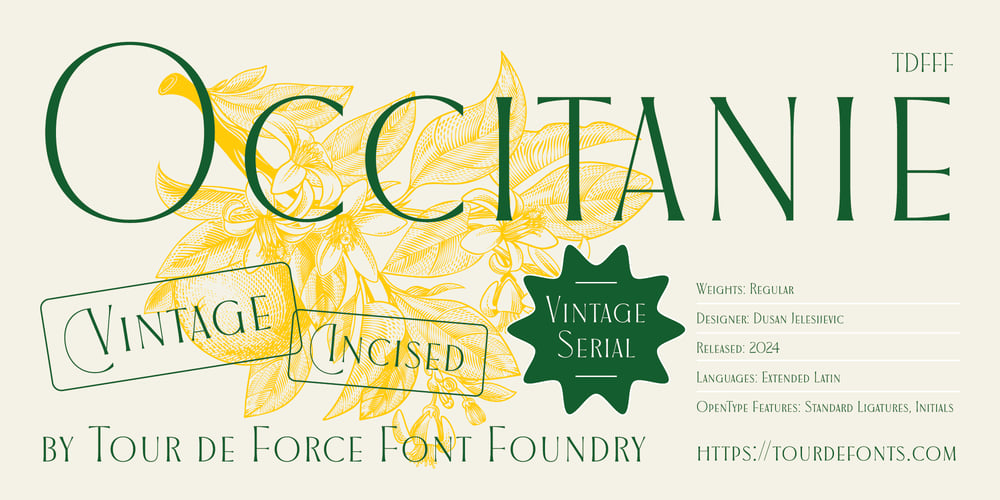
Occitanie Font Family was designed by Dusan Jelesijevic and published by Tour De Force. Occitanie contains 1 styles and family package options. Occitanie is single weight font family inspired by vintage designs.With it’s incised serifs, Occitanie gather elegancy and smoothness combined with high contrasted stems. Letters look sensible, touchy, airy, with mixed proportions.Occitanie can be used safely for movie titles, cosmetic and fashion products, branding brojects, website titles and in many more situations.Contain Initials and Standard Ligatures as OpenType Features.